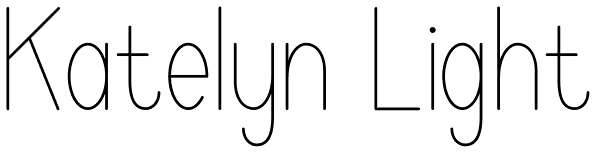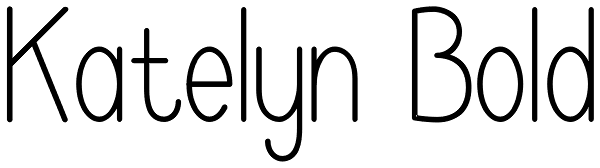
Katelyn
Katelyn is a sans serif font that reflects a straight and perfect handwritten note. In being in the middle of a sans serif font and completely handwritten, it will bring and lightness and playfulness to any design. Included in the face is a set of...
Katelyn Light
Katelyn Bold
Katelyn Medium
Katelyn Ornament